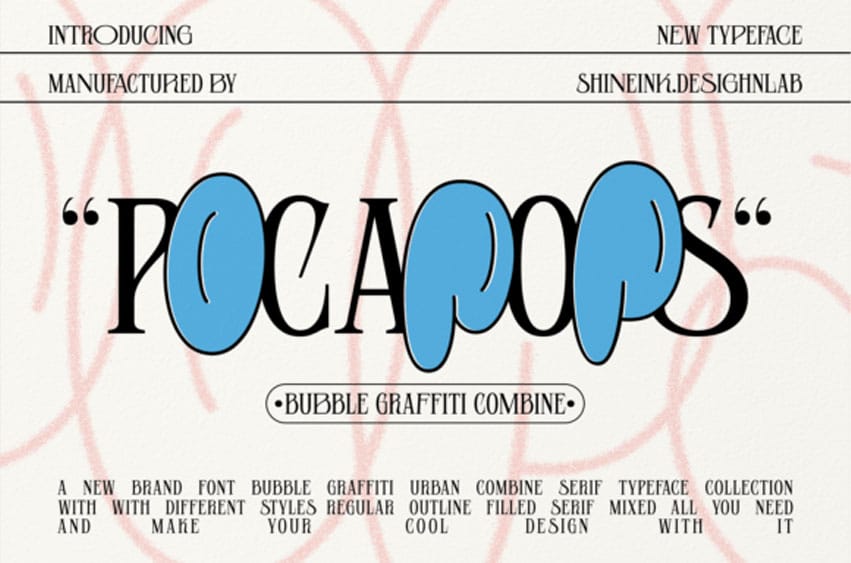
Pocapops Font boasts an eclectic fusion of bubbly, graffiti-style elements and the structured grace of serif typography. Each character tells a story of urban vibrancy, where the dynamic flow of graffiti meets the precision of serif text, creating a visually arresting and uniquely balanced design.
Whether you’re crafting a logo, poster, or any design that demands a blend of urban grit and typographic finesse, “Pocapops” stands ready to elevate your project.